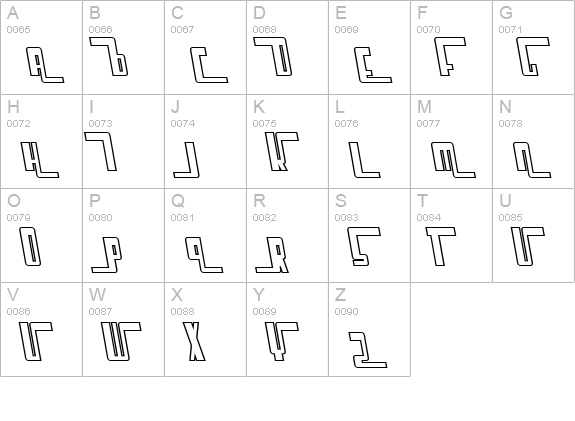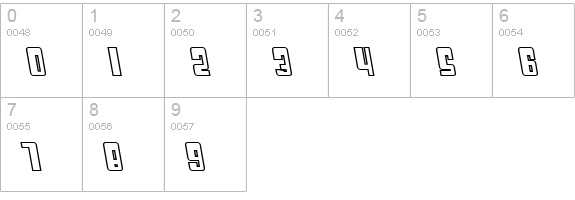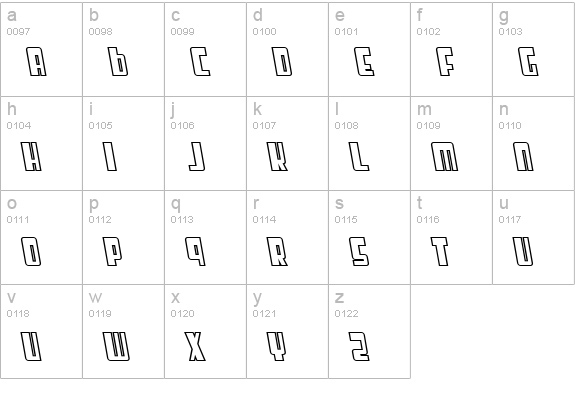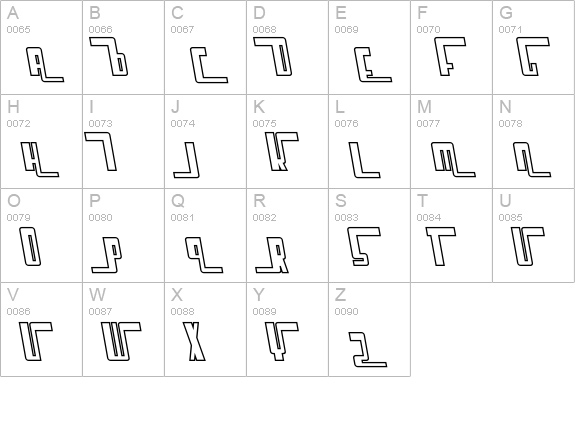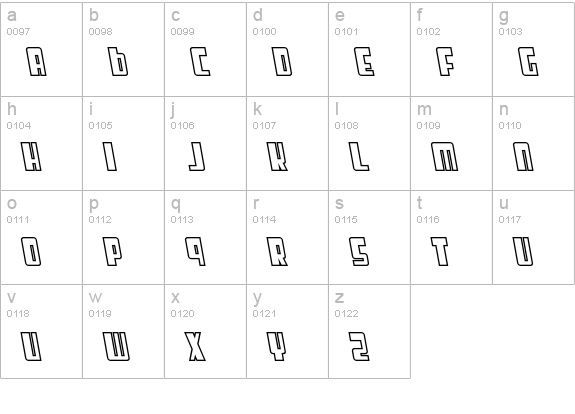
SF Cosmic Age Outline Oblique Font Details
SF Cosmic Age Outline Oblique is a distinctive, italic variant in the SF typeface family \xE2\x80\x94 well suited to design and typography projects.
Introducing the SF Cosmic Age Outline Oblique font, a captivating typeface that will transport your designs to another dimension. This futuristic and otherworldly font is perfect for adding a touch of cosmic flair to any project. With its sleek and angular outlines, SF Cosmic Age Outline Oblique is the embodiment of modernity and innovation. Its unique oblique style adds a dynamic and energetic touch, making it ideal for conveying a sense of movement and excitement. This font's versatility is truly remarkable. Whether you're designing a sci-fi movie poster, creating a futuristic logo, or crafting a cutting-edge website, SF Cosmic Age Outline Oblique will effortlessly elevate your work to new heights. But what sets this font apart is that it is freely available to download at FontsMarket.com. Yes, you read that right - this mesmerizing typeface can be yours without any cost. Now, you can unleash your creativity without any limitations or restrictions. So, why wait? Embrace the cosmic vibes and take your designs to the next level with SF Cosmic Age Outline Oblique. Download it for free at FontsMarket.com and let your imagination soar to the outer reaches of the universe.